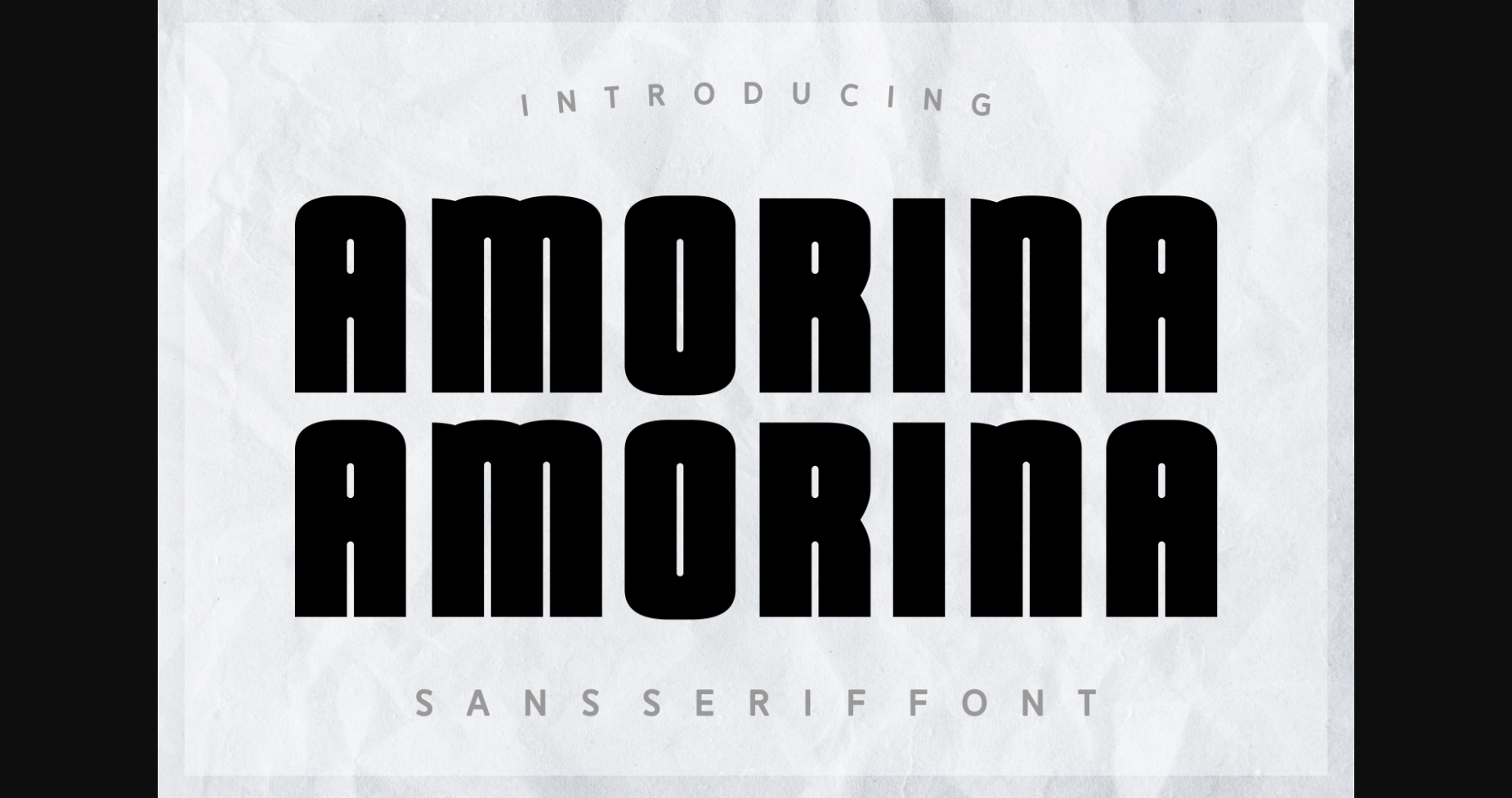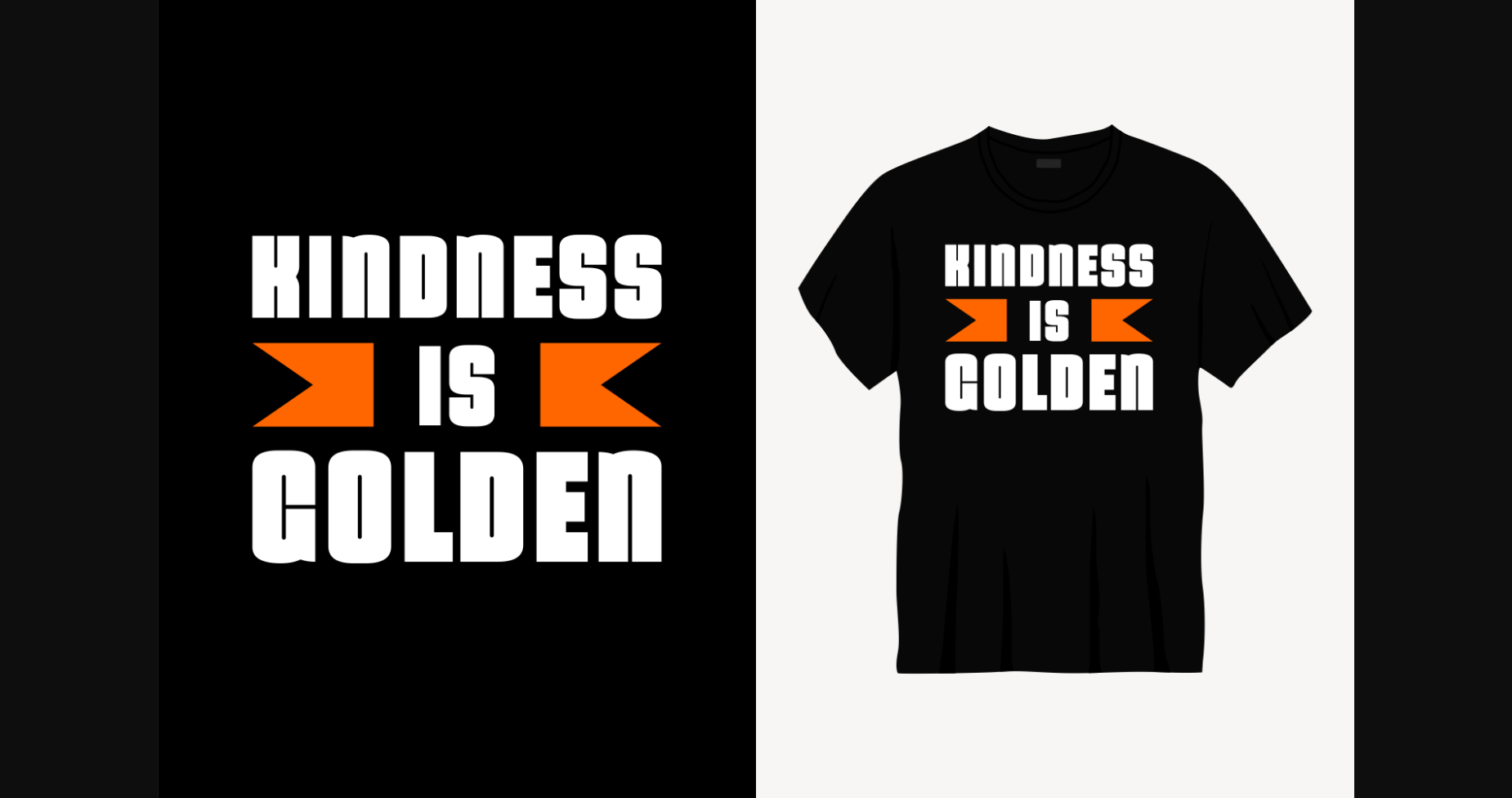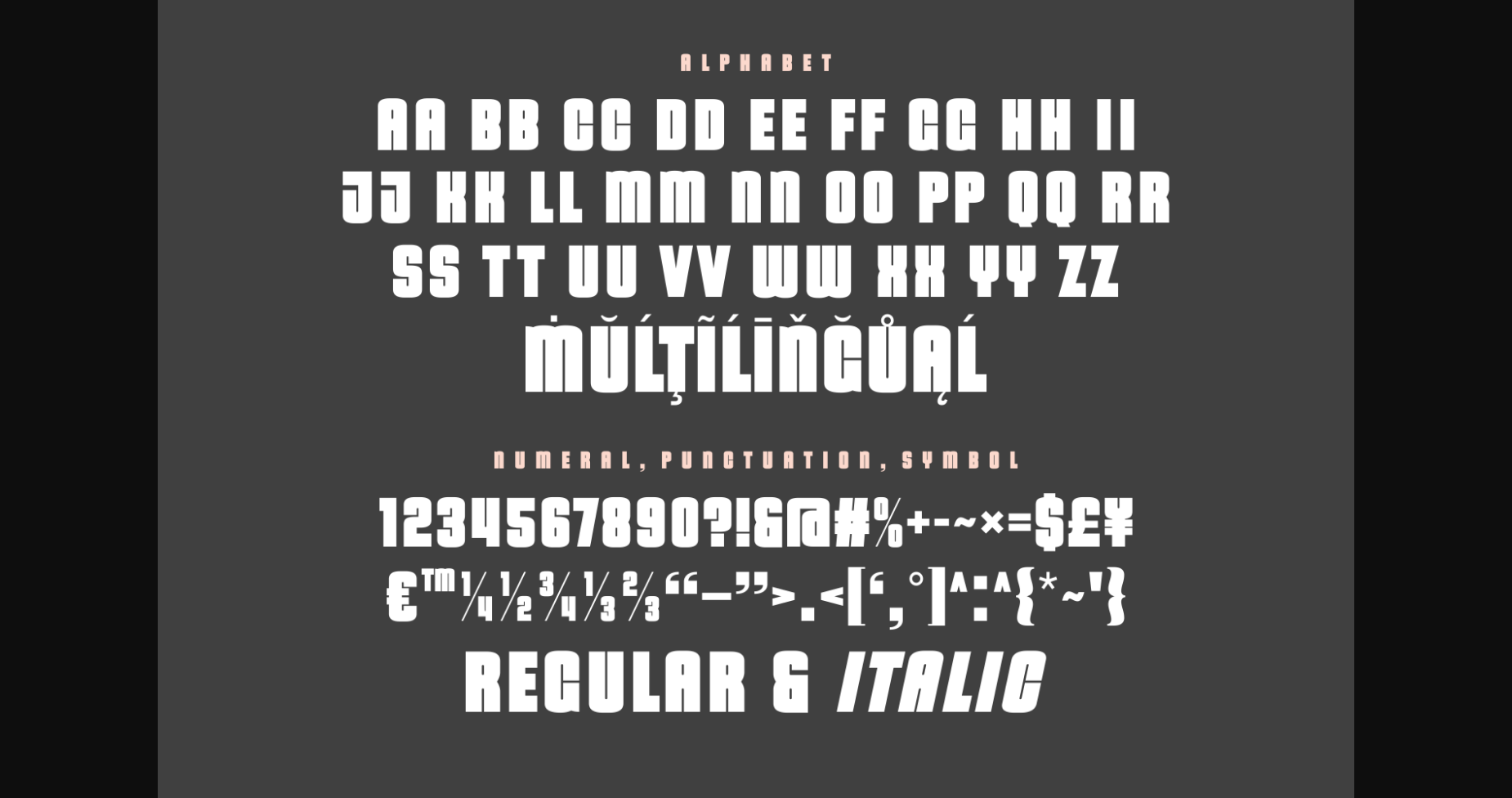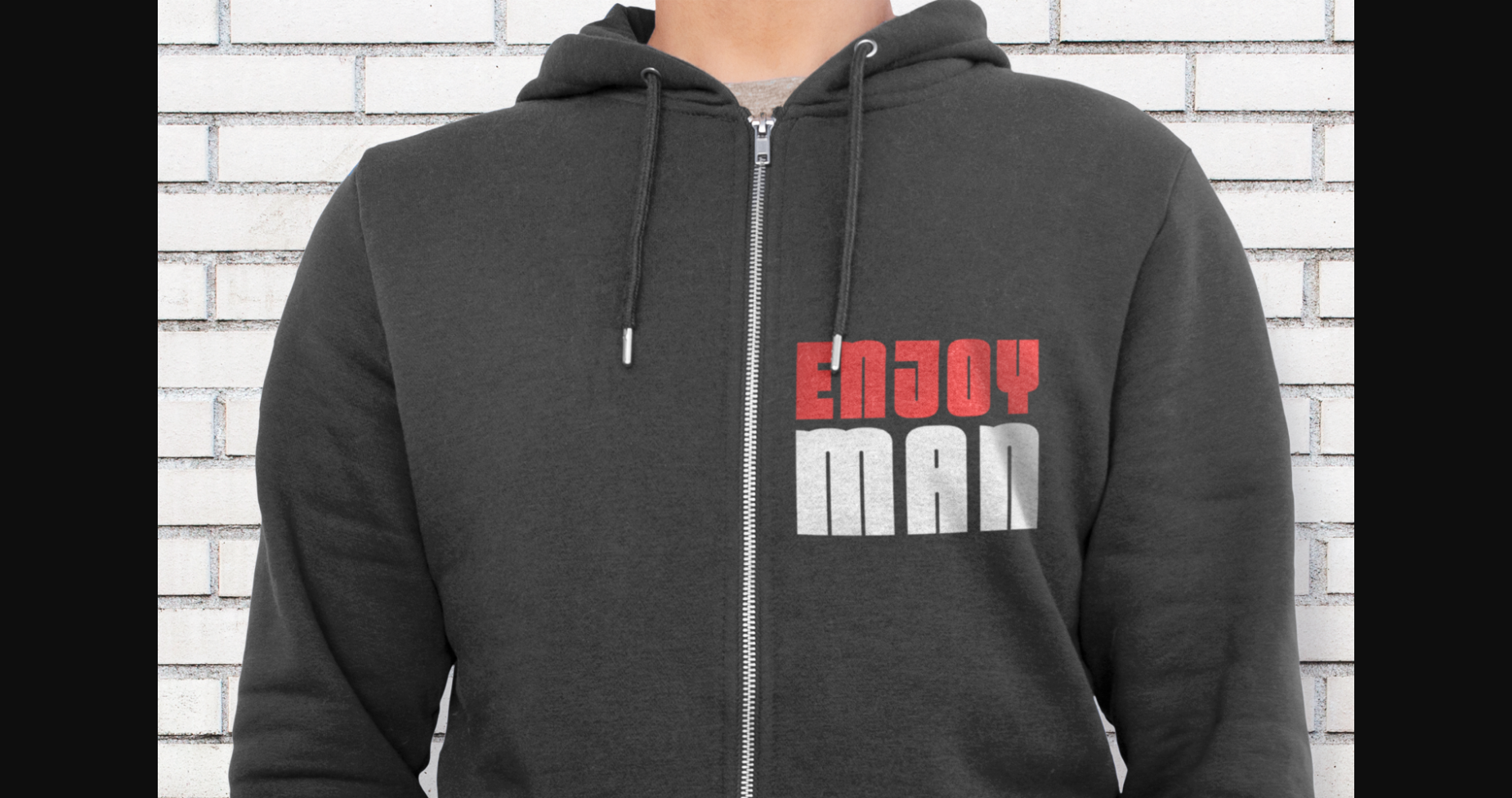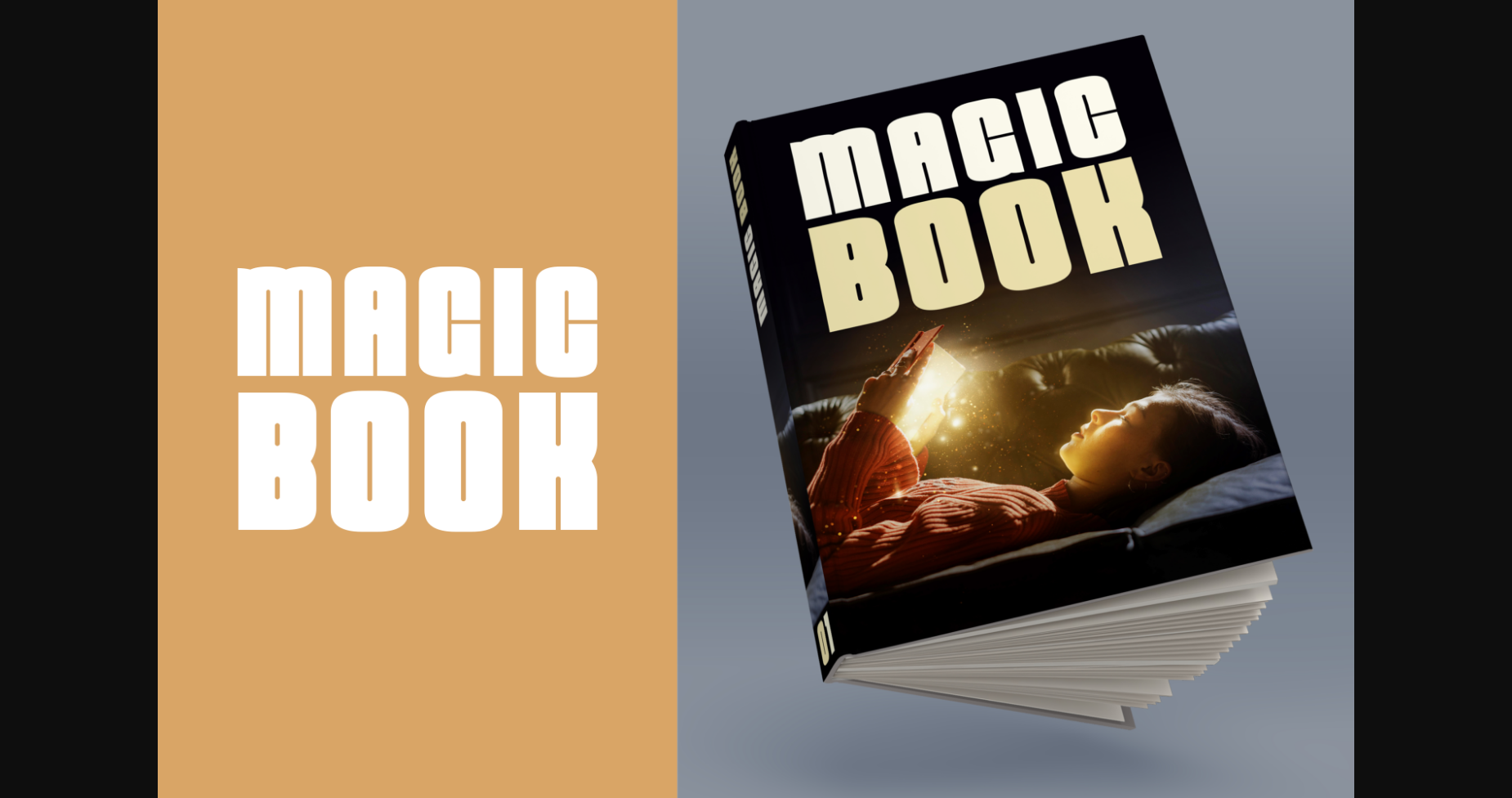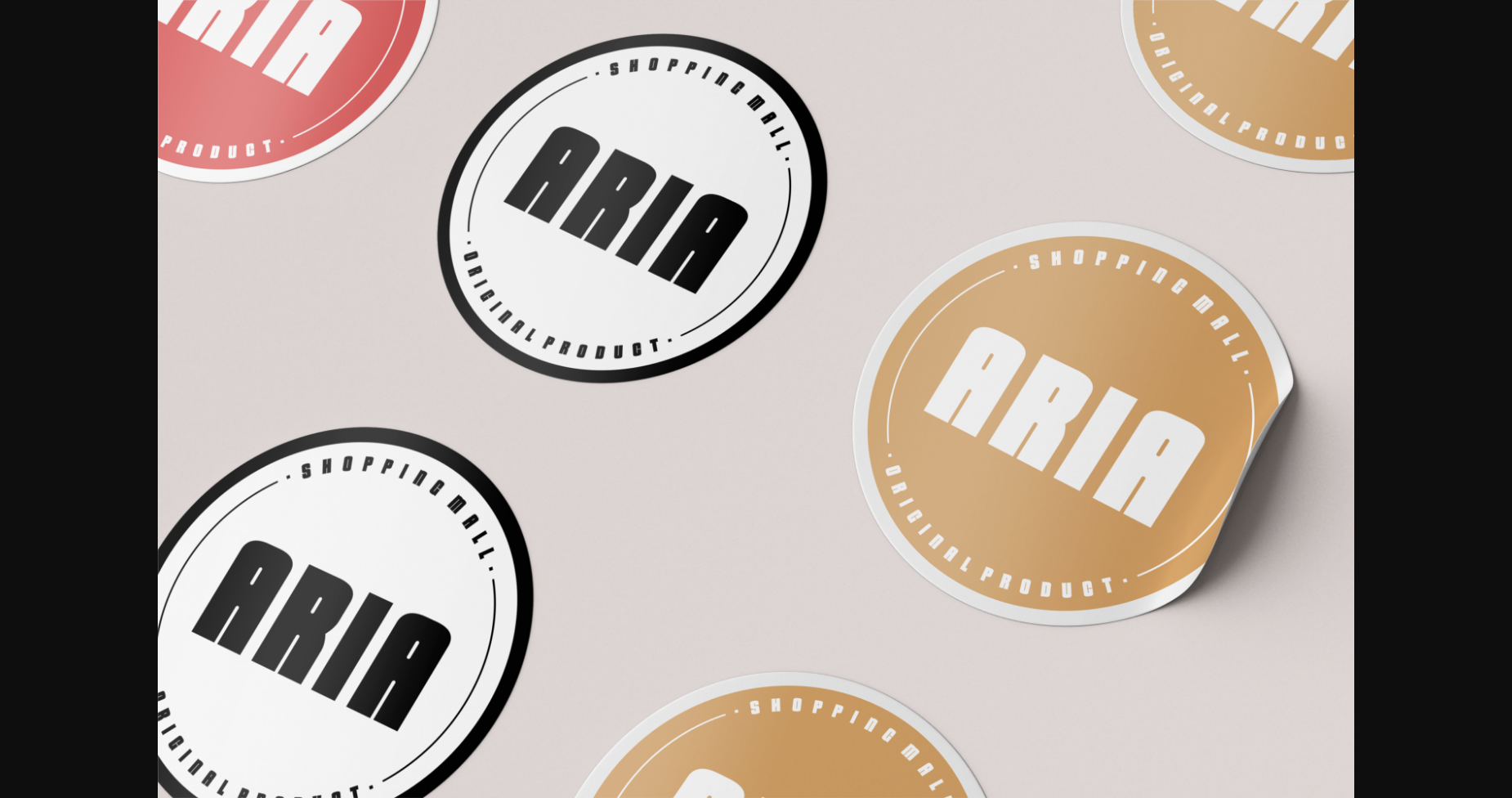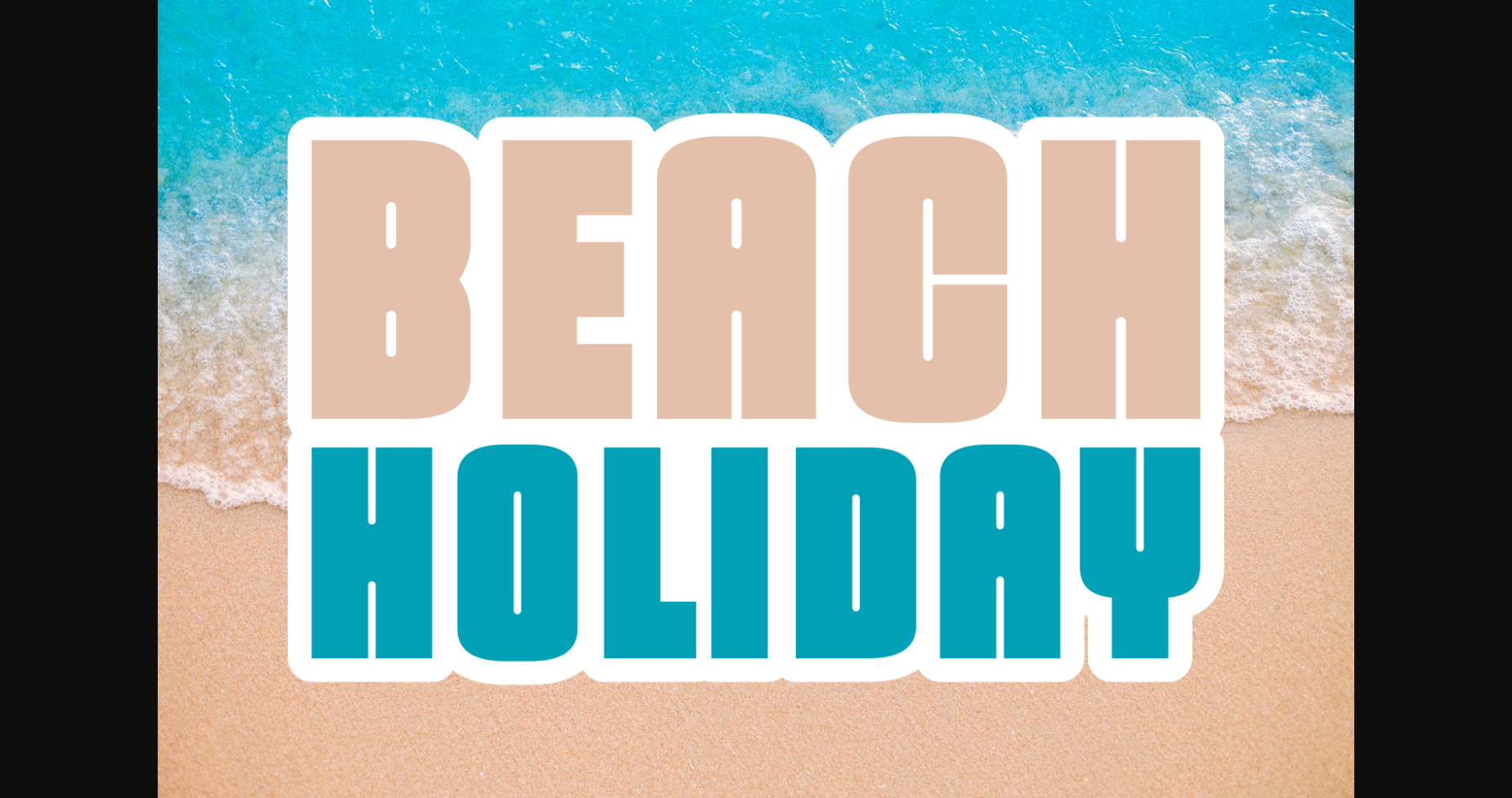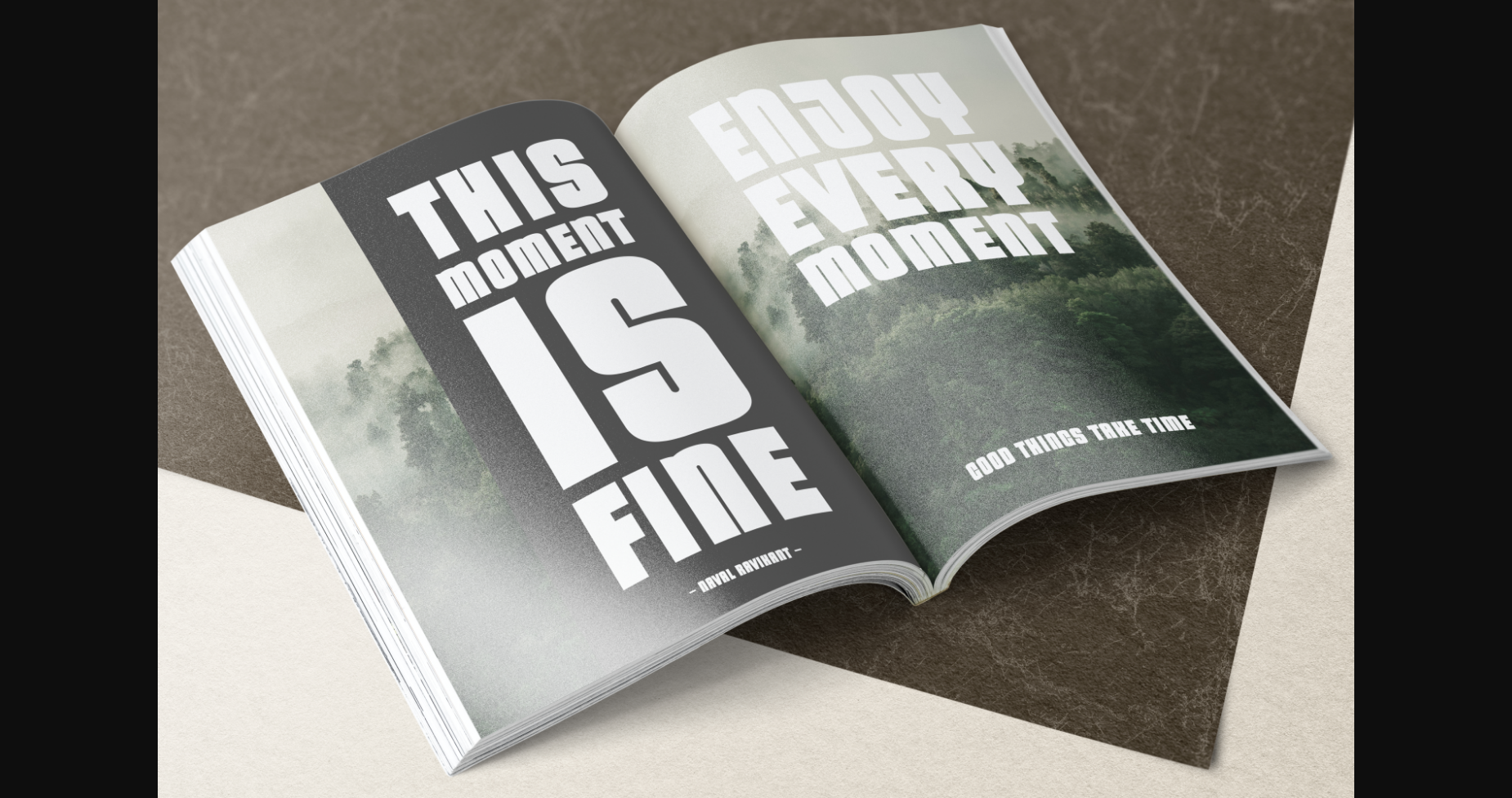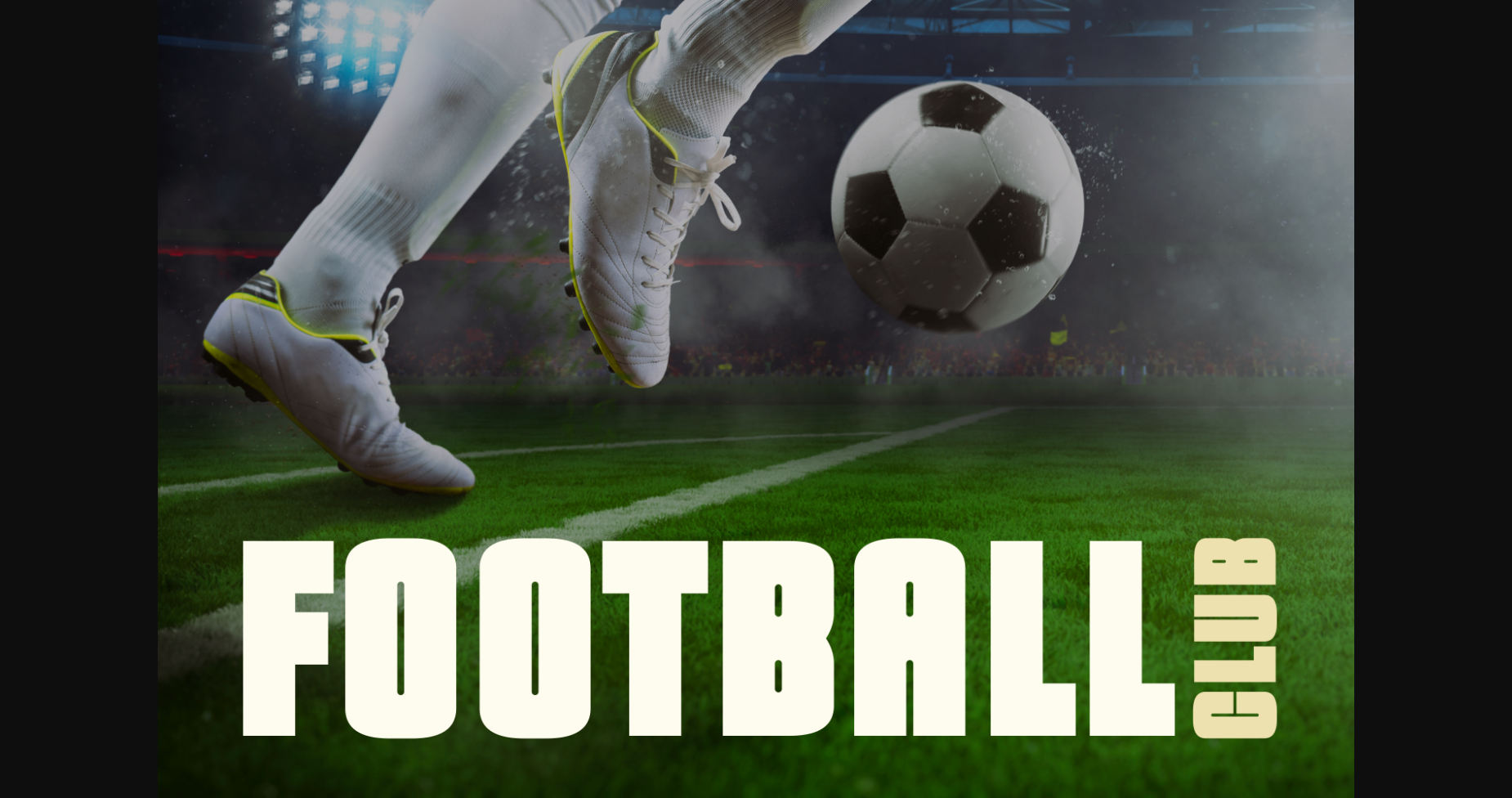
HomeSans Serif FontsAmorina Font Sans Serif Fonts Amorina Font FacebookXPinterestWhatsApp 1 of 11 ... Amorina Font Poster 2... Amorina Font Poster 3... Amorina Font Poster 4... Amorina Font Poster 5... Amorina Font Poster 6... Amorina Font Poster 7... Amorina Font Poster 8... Amorina Font Poster 9... Amorina Font Poster 10... Amorina Font Poster 11... About Amorina Font Amorina is a cool and bold sans serif font with a modern twist. Use this typeface for your designs and explore its endless possibilities. DOWNLOAD NOW People also explored Sports Fan – Handwritten Placard Type Font Sammalado Farmhouse Market Font Gestapu Font Love Heart Font Magical Monday Font Metalia Font Magna Extra Bold Font Booster Font 302 0 TagsAmorinaAmorina Font Previous articleOneday FontNext articleDinoris Font LEAVE A REPLY Cancel reply Comment: Please enter your comment! Name:* Please enter your name here Email:* You have entered an incorrect email address! Please enter your email address here Website: Save my name, email, and website in this browser for the next time I comment. Personal Use Free Rionaldo Angelo Personal Use Free Read more about this font Crack Man Personal Use Free Read more about this font Doriss Girls Family Personal Use Free Read more about this font Almonte Personal Use Free Read more about this font BLOG Best Fonts for T-Shirt Design – Top 2025 Picks In 2025, t-shirt design has become more than just fashion—it's a form of self-expression. Whether you're... Free Fonts Risk: Why Free Fonts Can Be Dangerous for Designers Where to Buy American Fonts Online in 2024 5 Fonts That Will Dominate Design Trends in 2026